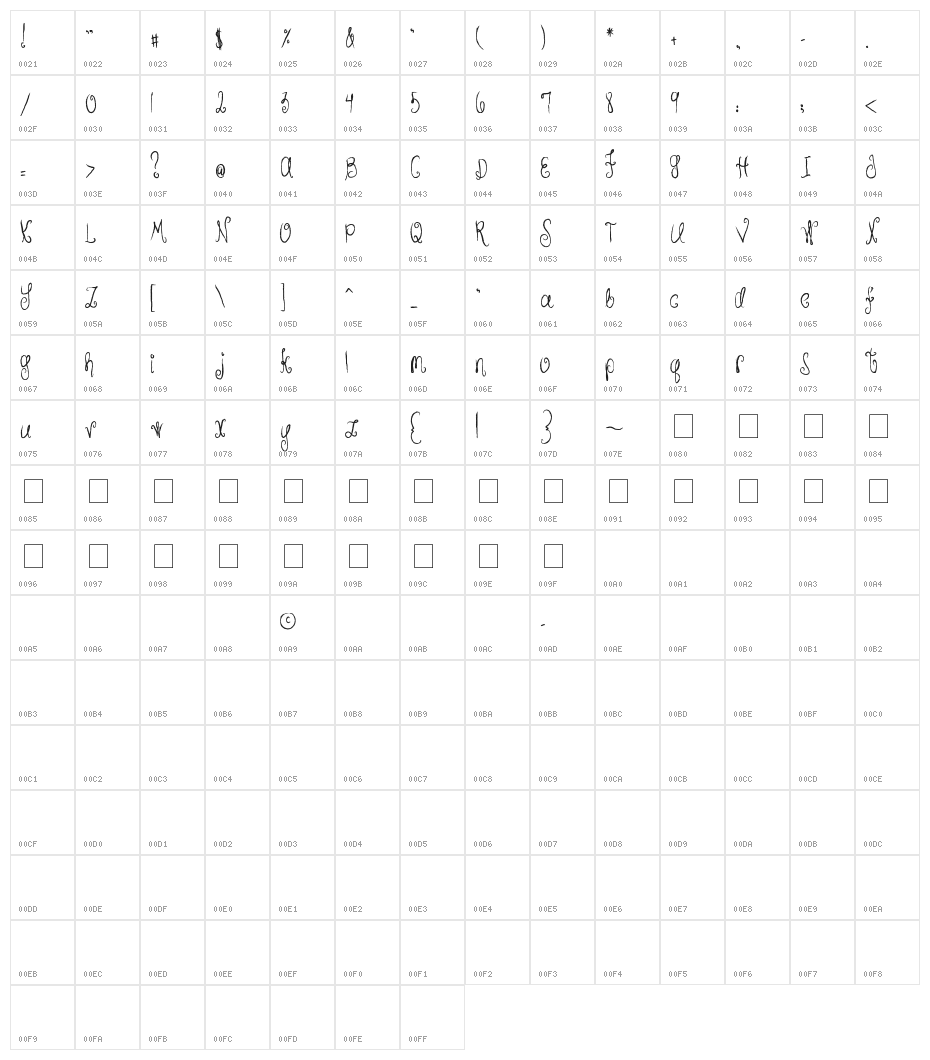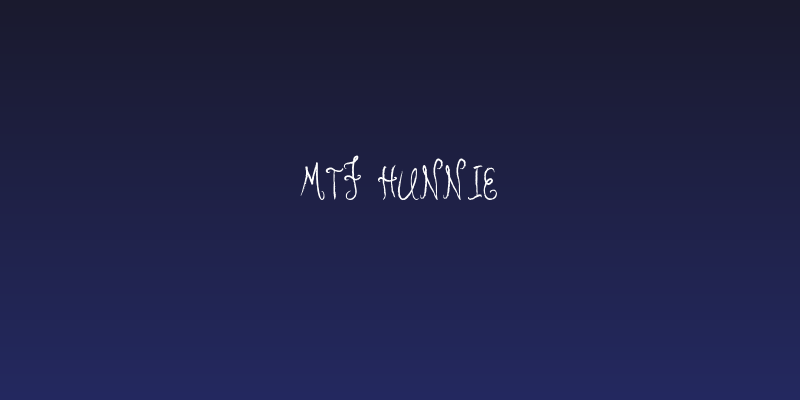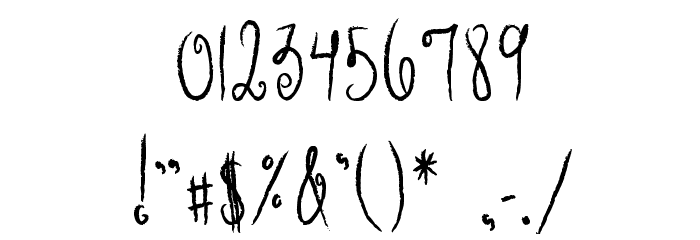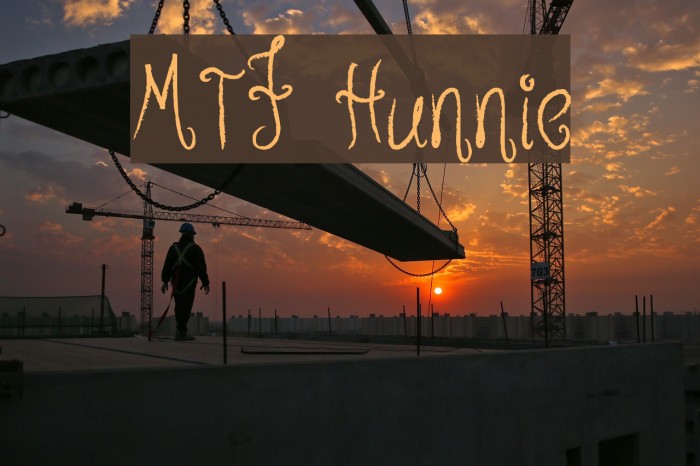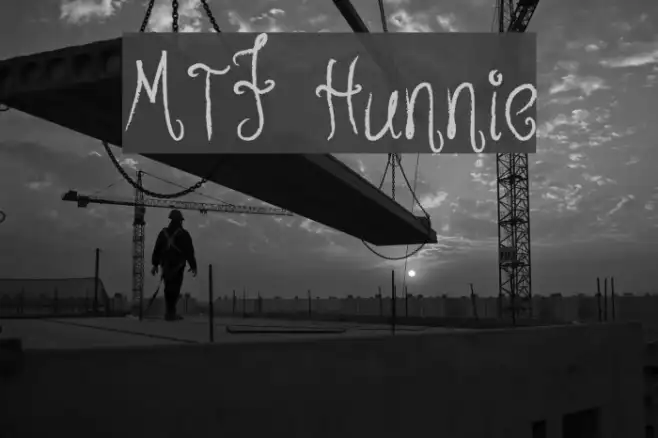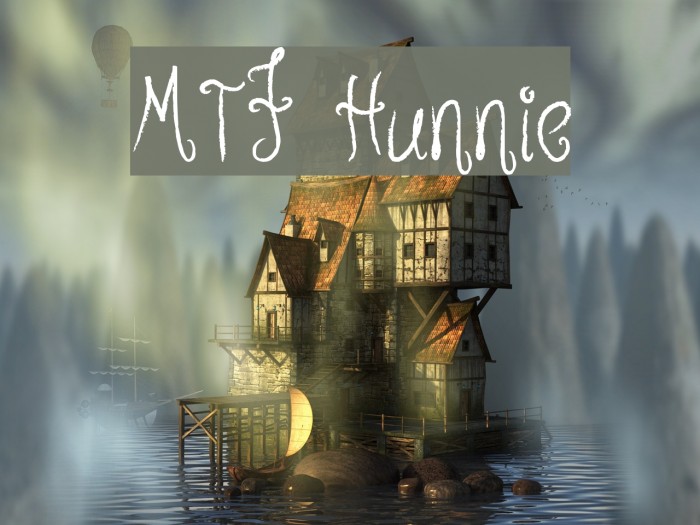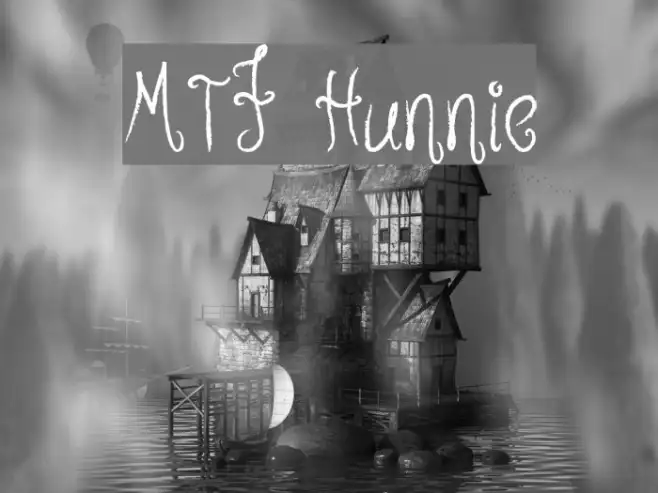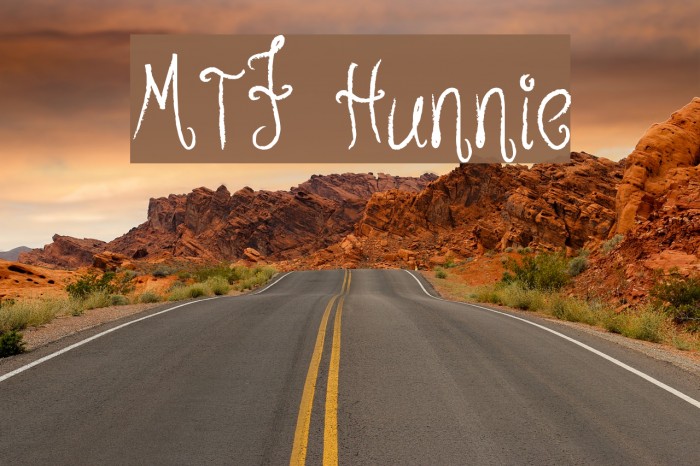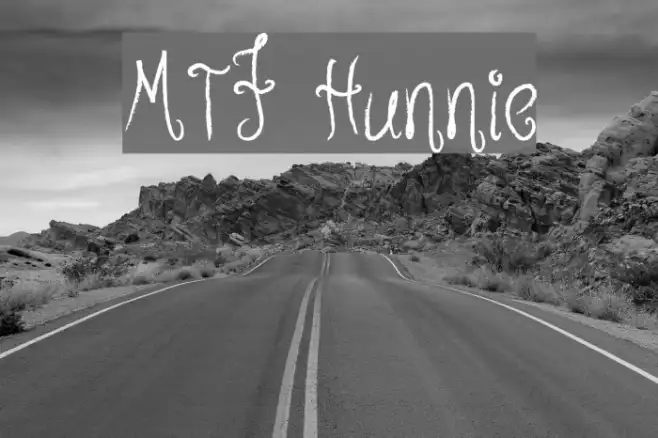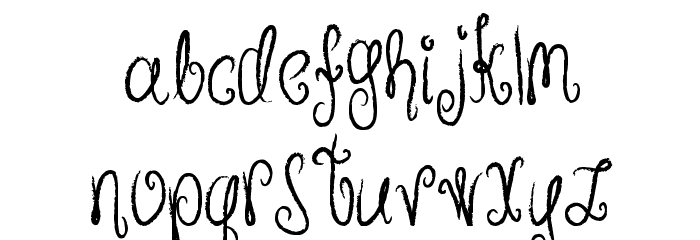
MTF Hunnie Font
MTF Hunnie Description
This font features a whimsical and playful design with a handwritten style. The letters are characterized by their curly and looping strokes, giving it a lively and energetic appearance. The uppercase and lowercase letters maintain a consistent style, with an emphasis on decorative flourishes. Numbers and special characters are also included, matching the overall aesthetic with their unique and artistic forms. The font's irregularities and varied stroke thickness contribute to its charm, making it suitable for creative and informal projects.
| Proposed Projects | Ideal for greeting cards, invitations, children's books, and playful branding. |